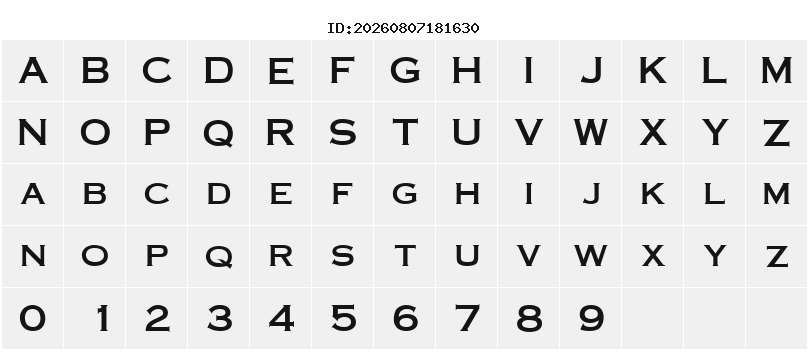
About OCopperplate-Plain.ttf
OCopperplate-Plain.ttf is a modern, elegant sans-serif font designed for ultimate readability and visual harmony. Perfect for branding, headlines, web design, and print materials.